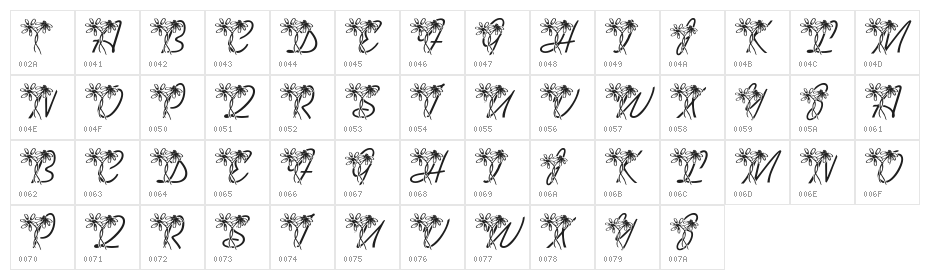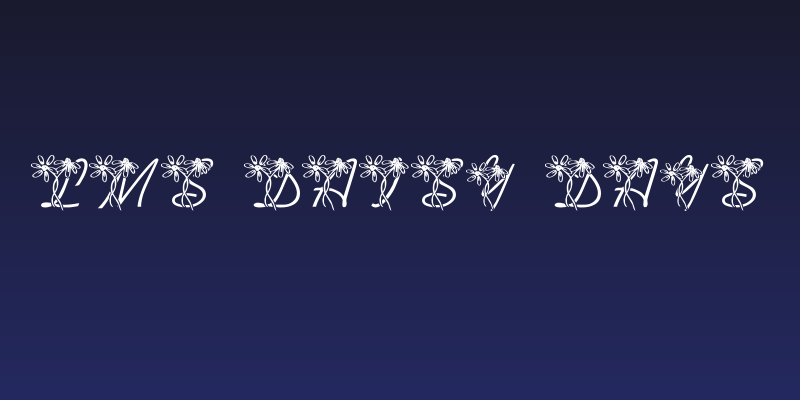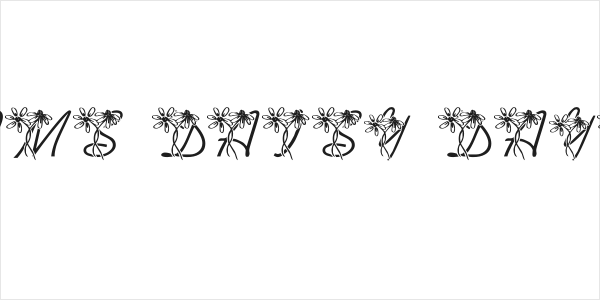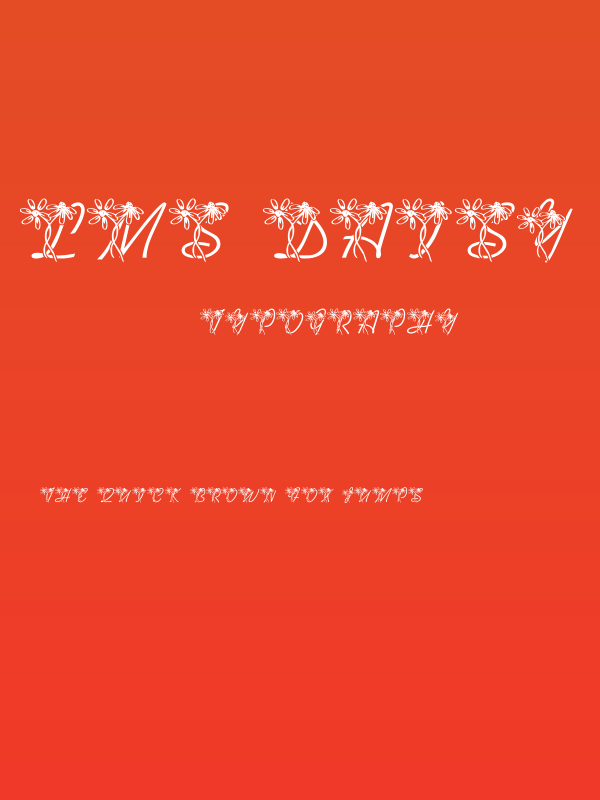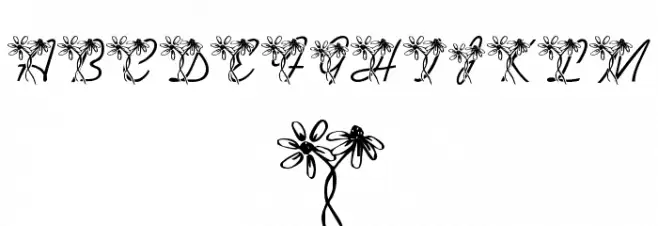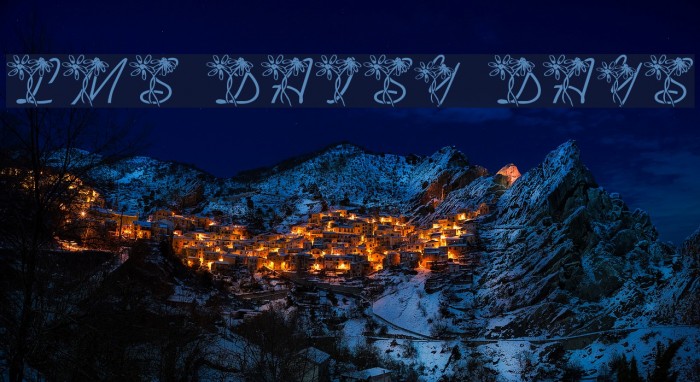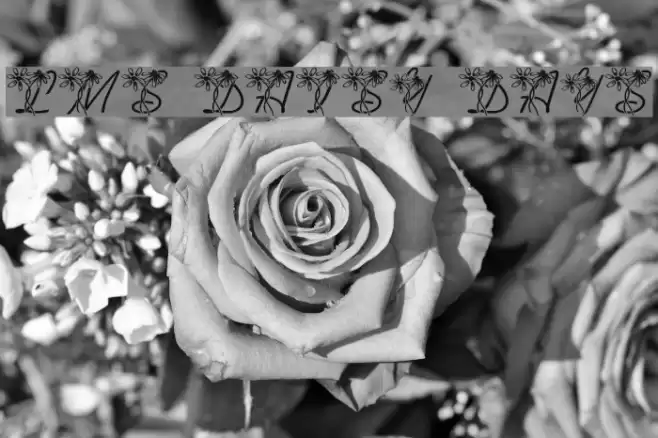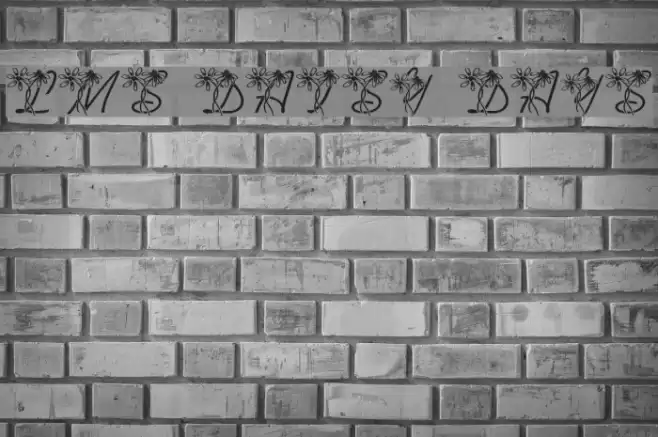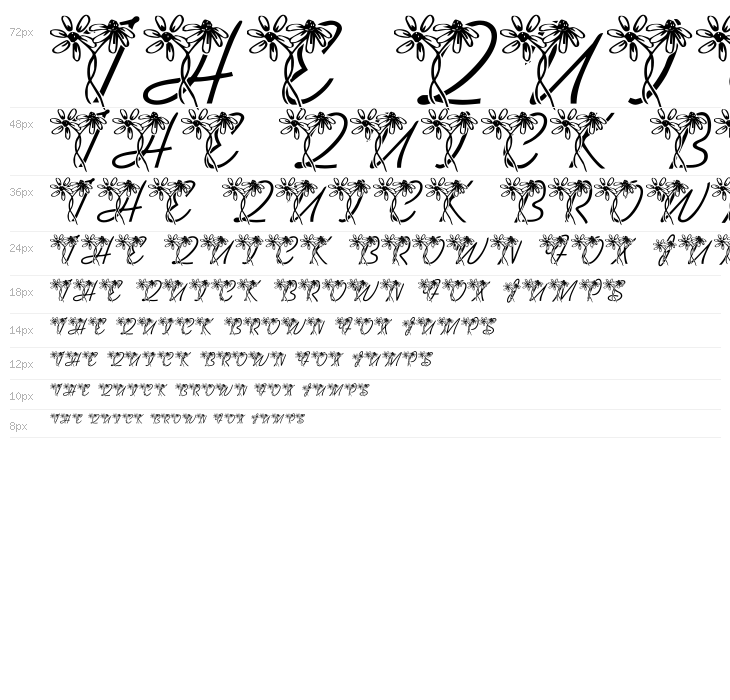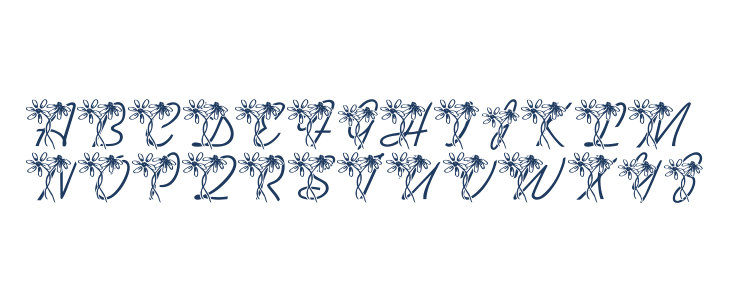
LMS Daisy Days Font
LMS Daisy Days Description
This whimsical and decorative font features letters adorned with daisy-like flowers, giving each character a playful and organic appearance. The floral embellishments are integrated into the upper part of each letter, creating a unique blend of nature and typography. The font maintains a consistent style across uppercase, lowercase, numbers, and special characters, with each character having a distinct floral motif. The overall design is light-hearted and artistic, making it ideal for projects that require a touch of nature or a playful aesthetic. The intricate details of the flowers add a layer of complexity and charm, making it stand out as a decorative choice.
| Proposed Projects | Ideal for greeting cards, invitations, children's books, and decorative posters. |